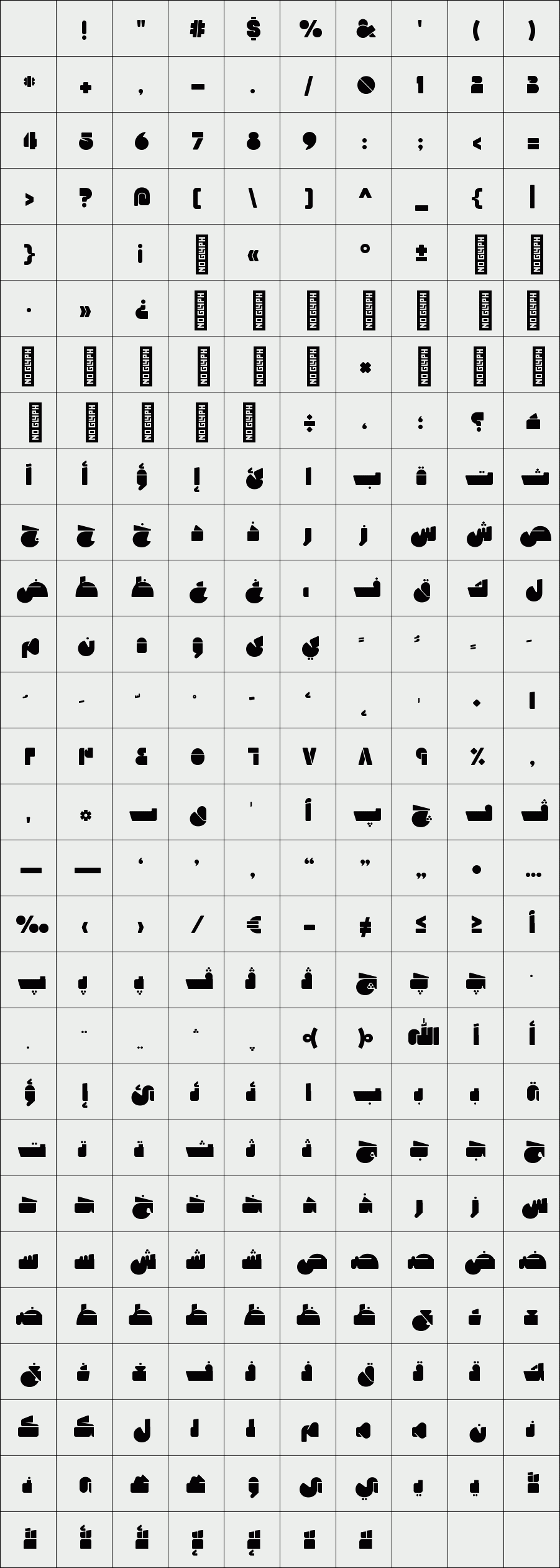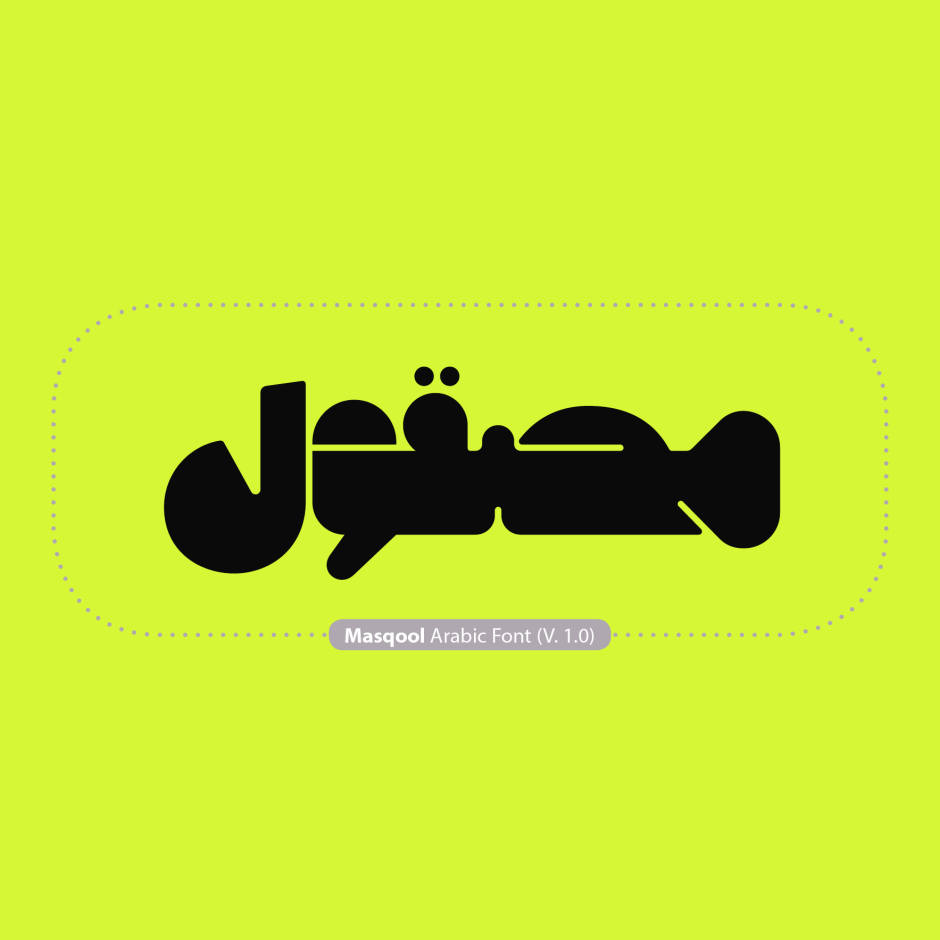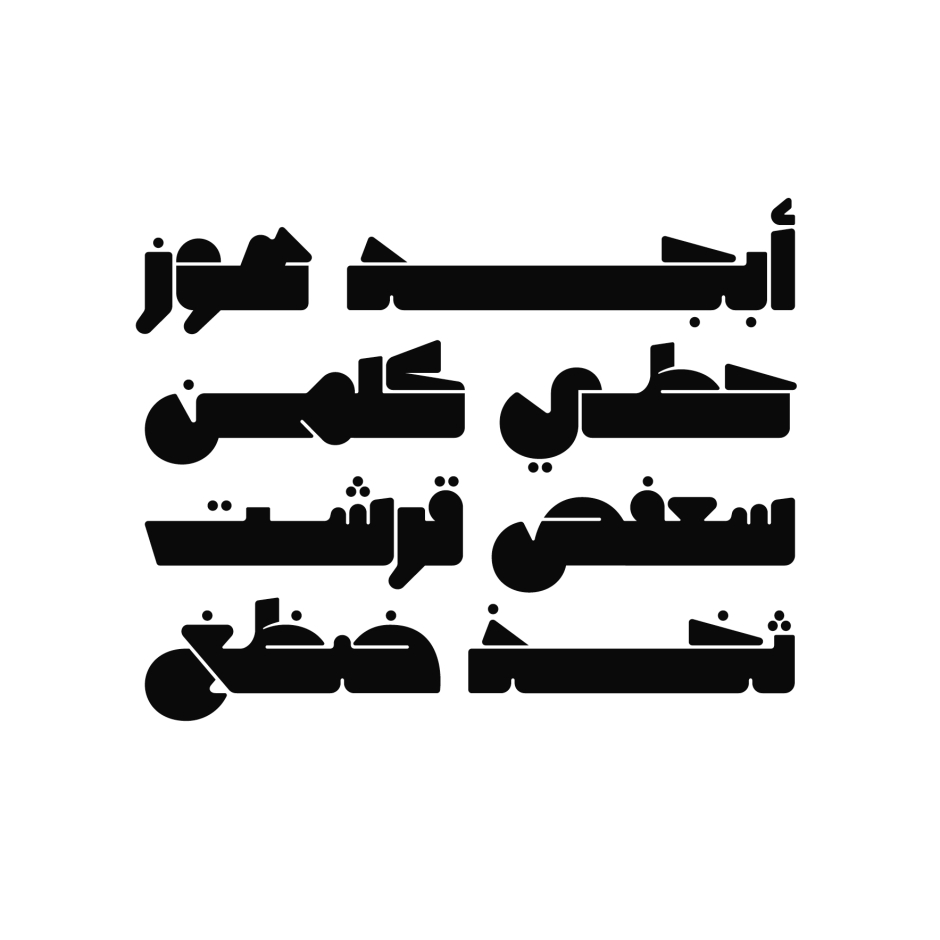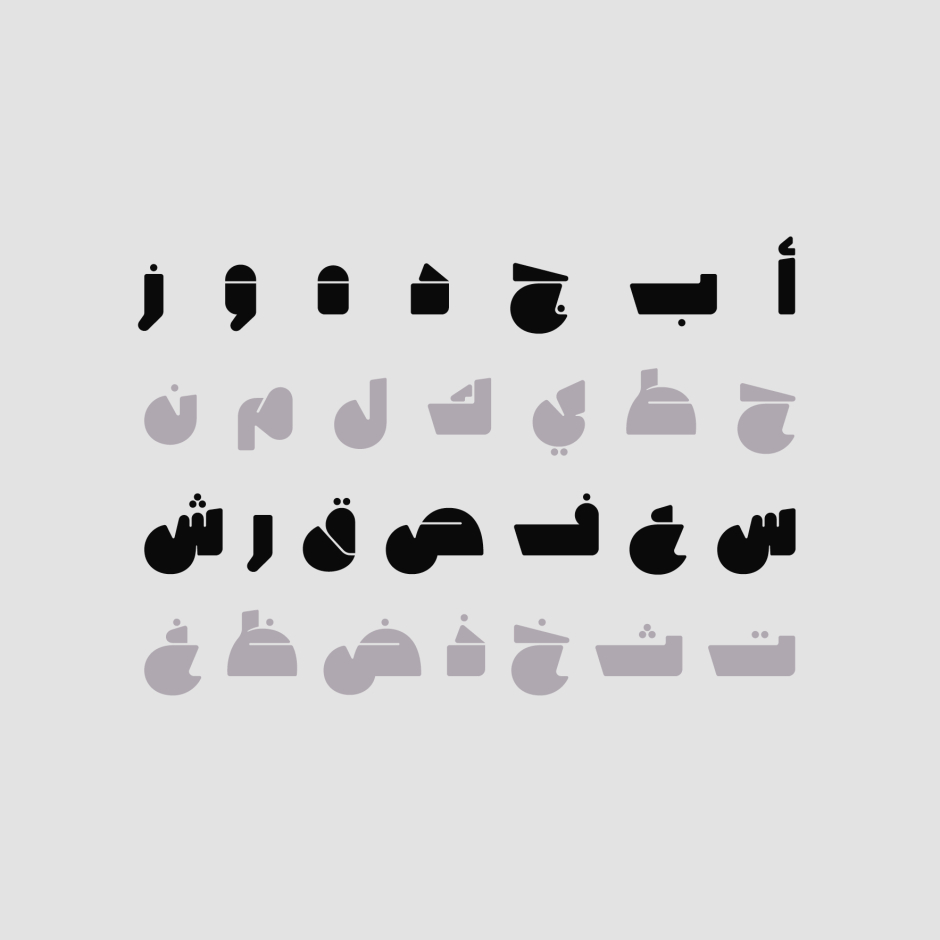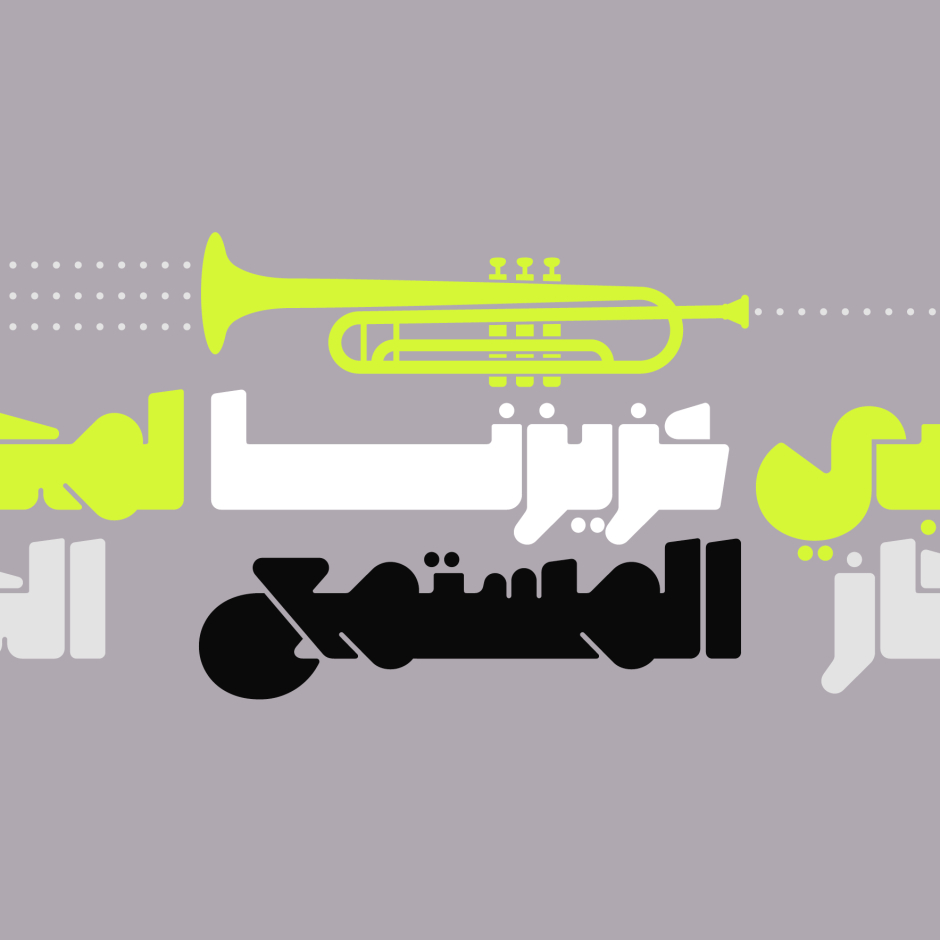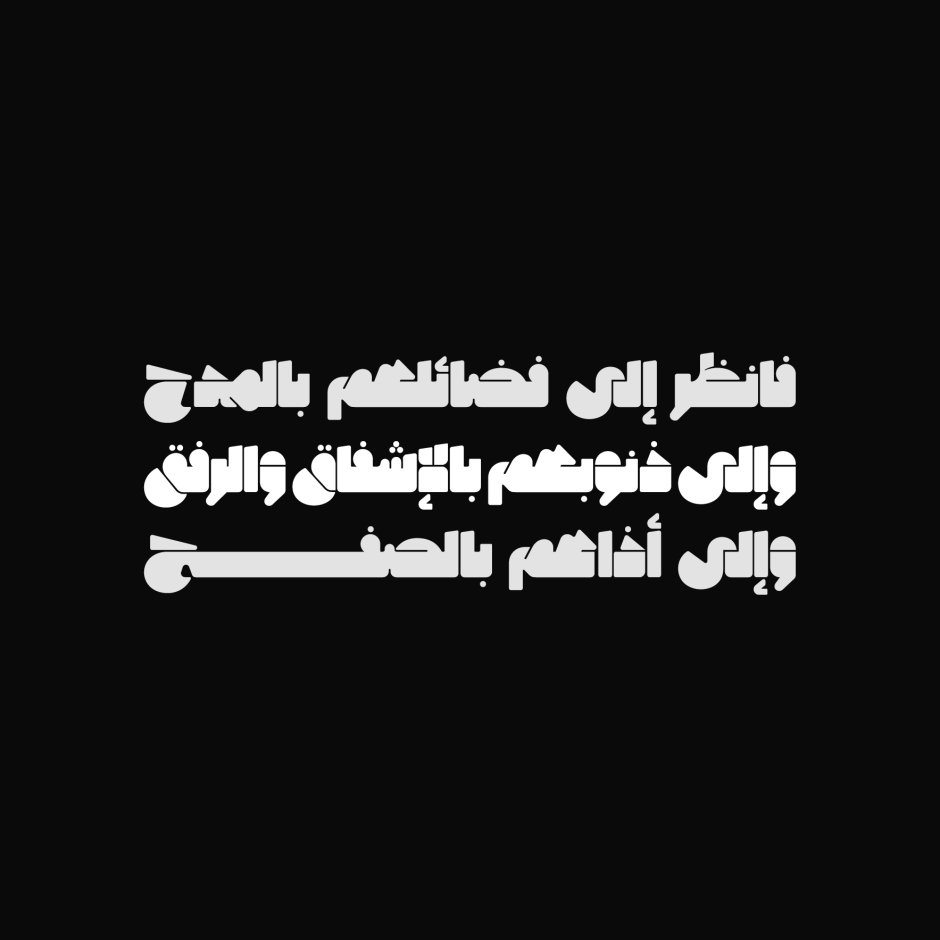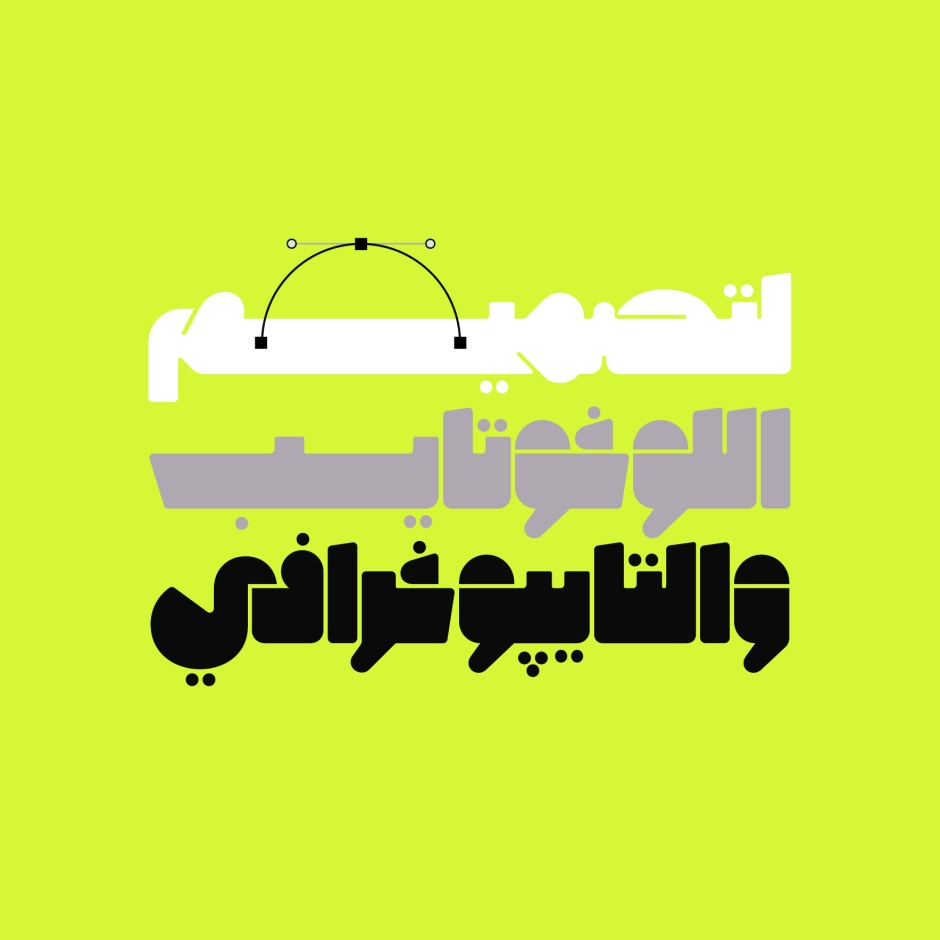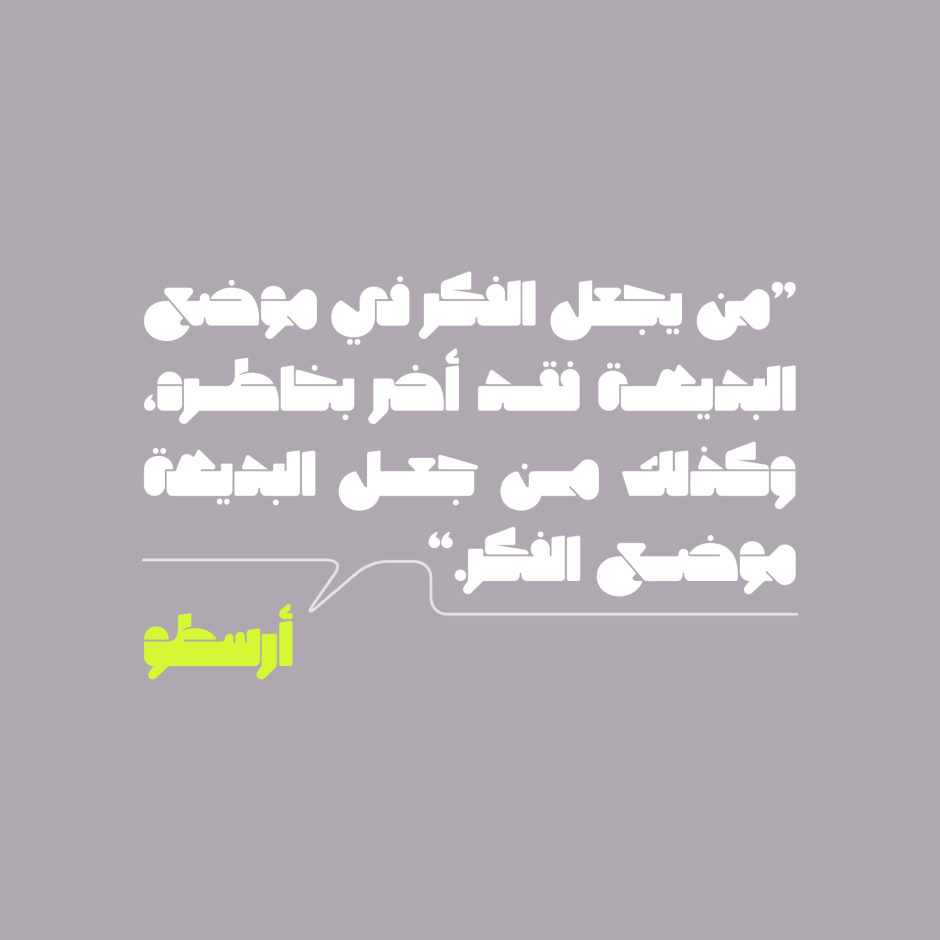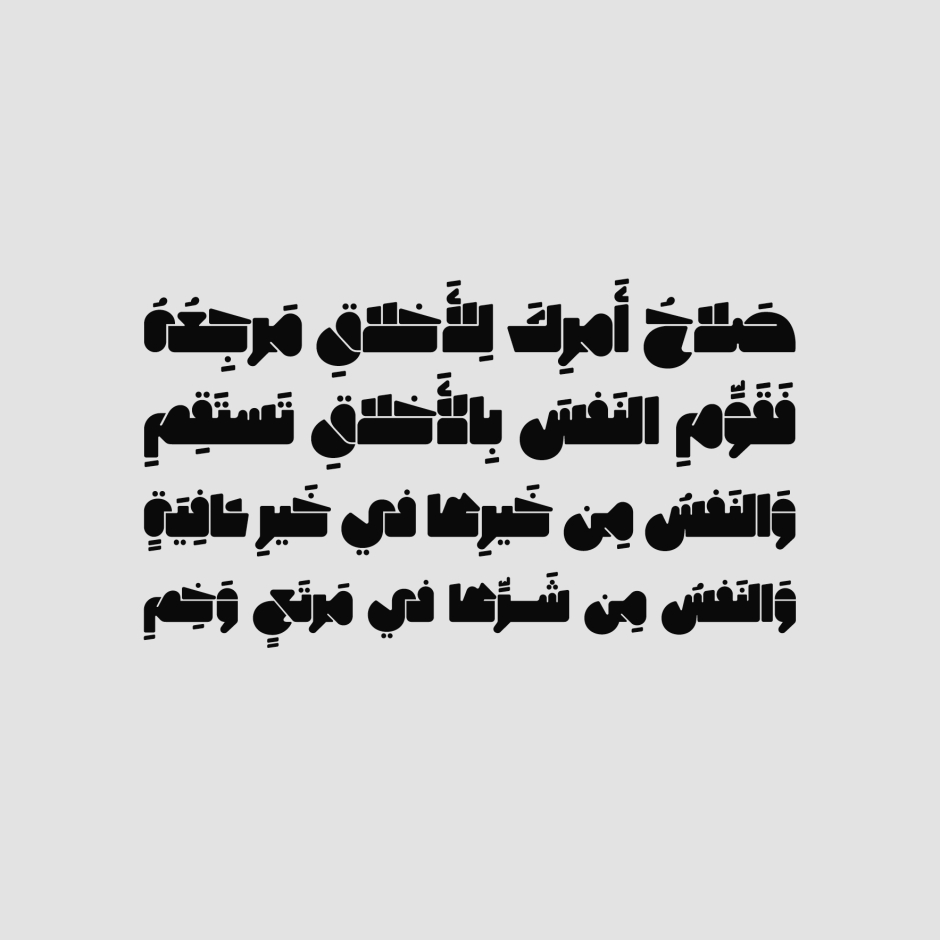
Masqool
Masqool (the Arabic for 'Polished') is an Arabic display font that features an experimental letterform design. The font is suitable for various range of creative projects including web design, print, branding, advertising, and mobile applications. Masqool font supports Windows and Mac OS.